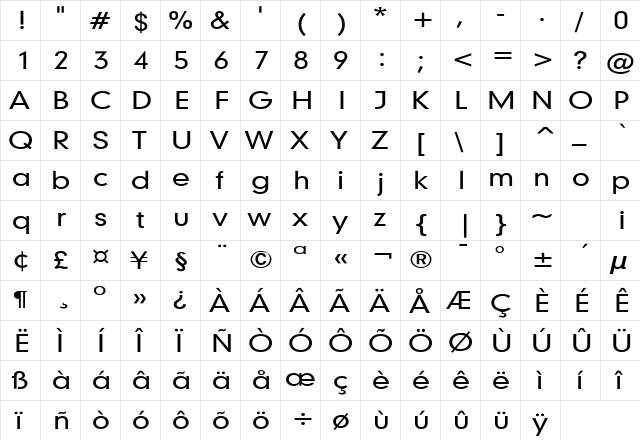
Geo 579 Wide Normal
Design Context for Geo 579 Wide Typeface
Geo 579 Wide is a composed and adaptable typeface that performs quietly and consistently across a wide range of design contexts.